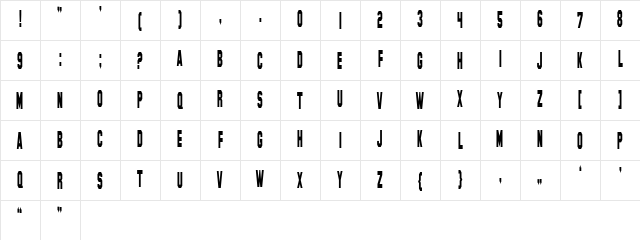
SF Hollywood Hills Condensed Regular Free Font
SF Hollywood Hills Condensed Regular
Design Context for SF Hollywood Hills Condensed
SF Hollywood Hills Condensed echoes the hand-painted signage and woodblock typography of the American frontier, with a warm, rugged personality.
Font Pairing: Combine SF Hollywood Hills Condensed with a simple slab or neutral sans - period-accurate companions reinforce the vintage feel without competing for attention.
Pro Tip: Use SF Hollywood Hills Condensed for short, impactful bursts of text - it shines in poster headlines and product names rather than extended copy.